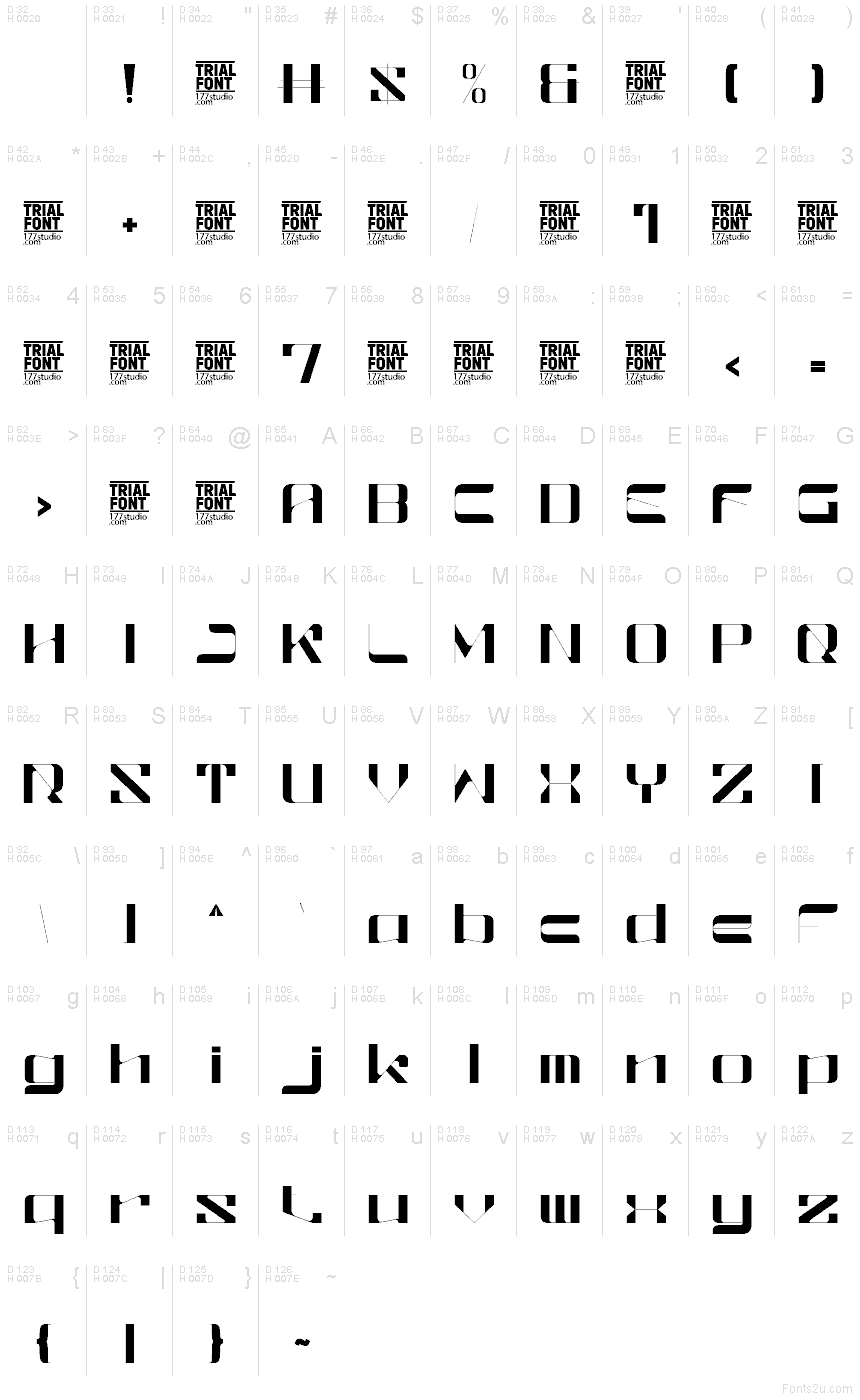
COSTNER DEMO Regular
Costner font by 177Studio is a free futuristic display typeface that carves each letter into bold, modular blocks sliced with sharp diagonal cuts. The chunky forms, rounded outer corners, and precise white gaps give it a sleek, sci‑fi industrial feel—like signage etched into metal panels or glowing across a retro computer screen. It’s striking, legible at a glance, and instantly stamps a wordmark with a tech-forward attitude.
Using Costner, this free font, you can push titles for gaming covers, movie posters, esports branding, nightclub flyers, sci‑fi book jackets, and bold app splash screens. The tight rhythm and geometric repetition make short words and acronyms feel compact and powerful. Pair it with a clean, neutral sans serif for body copy, and let Costner handle the big, loud moments at larger sizes where its sliced shapes can really breathe.